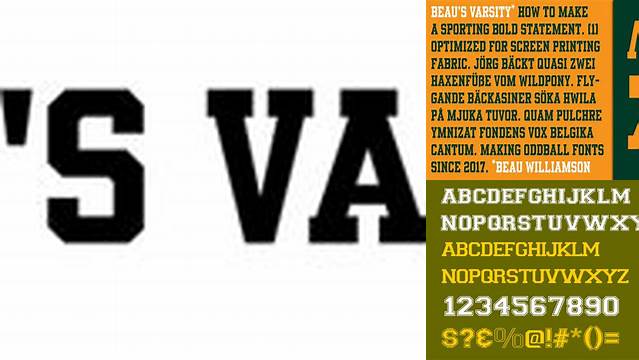
Are you looking to capture that classic, sporty aesthetic in your designs? Beau's Varsity font might just be what you need. This font embodies the spirit of collegiate sports and vintage lettering, making it perfect for a variety of projects. Whether you're designing a logo, creating merchandise, or working on a school-themed project, Beau's Varsity can add a touch of authenticity and nostalgia. In this article, we'll explore everything you need to know about this font, including where to find a free download, how to use it effectively, and some creative ideas to inspire your next design.
What is Beau's Varsity Font?
Beau's Varsity font is a typeface designed to emulate the lettering commonly found on sports jerseys, school banners, and vintage signs. It typically features bold, blocky characters with sharp serifs or clean, geometric forms that convey a sense of strength and tradition. The font's aesthetic is heavily influenced by the visual culture of American high schools and universities, making it instantly recognizable and appealing for projects aiming to evoke those themes.
The appeal of Beau's Varsity font lies in its ability to create a sense of nostalgia and authenticity. When you see this font, you might immediately think of classic sports movies, vintage advertisements, or old school yearbooks. This connection to the past makes it a powerful tool for designers looking to tap into those emotions and associations. Whether you're working on a logo for a sports team, designing a poster for a school event, or creating merchandise for a university, Beau's Varsity can help you capture the essence of that world.
Furthermore, the versatility of Beau's Varsity font should not be overlooked. While it is primarily associated with sports and academic themes, it can also be used in other contexts to add a touch of retro charm or vintage flair. For example, it can be used in the design of craft breweries, local restaurants, or even fashion brands that want to project a sense of heritage and authenticity. The key is to use it judiciously and in a way that complements the overall design aesthetic.
In addition to its aesthetic qualities, Beau's Varsity font is also known for its legibility and impact. The bold, blocky characters are easy to read even from a distance, making it ideal for headlines, signage, and other applications where visibility is crucial. The clean, geometric forms also ensure that the font looks crisp and modern, even though it is inspired by vintage designs. This combination of legibility and visual appeal makes Beau's Varsity a popular choice among designers who want to create designs that are both eye-catching and functional.
How to Effectively Use Beau's Varsity Font
To effectively use Beau's Varsity font, consider its unique characteristics and the specific design context in which you're working. This font is best suited for headlines, titles, and short phrases where its bold, blocky characters can make a strong visual impact. Avoid using it for long paragraphs of text, as its distinct style can become tiring to read over extended periods.
Beau's Varsity font is a versatile and impactful typeface that can add a touch of authenticity and nostalgia to your designs. Whether you're working on a sports-related project, a school-themed design, or a vintage-inspired creation, this font can help you capture the essence of that world. By following the tips and ideas outlined in this article, you can effectively use Beau's Varsity to create stunning designs that impress your audience. Remember to find a reliable source for a free download and to use the font in compliance with its licensing terms. With a little creativity and experimentation, you can unlock the full potential of Beau's Varsity font and create designs that stand out from the crowd. So, what are you waiting for? Start designing today!